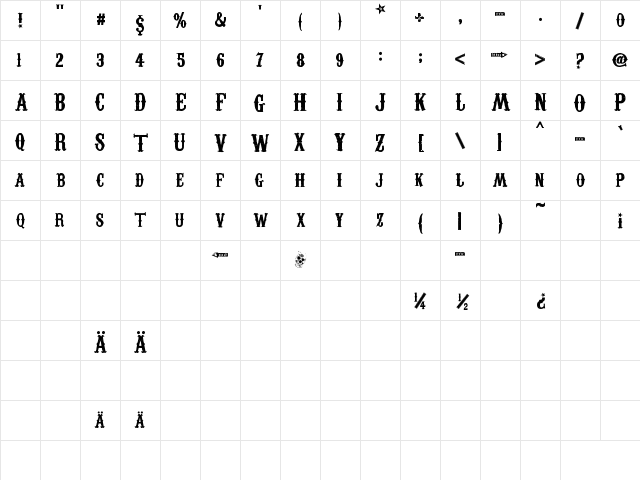
Carnivalee Freakshow Regular
Complete Carnivalee Freakshow Regular glyph index. Displaying only characters natively supported by Carnivalee Freakshow Regular font.
Design Context for Carnivalee Freakshow
Carnivalee Freakshow is a composed and adaptable typeface that performs quietly and consistently across a wide range of design contexts.